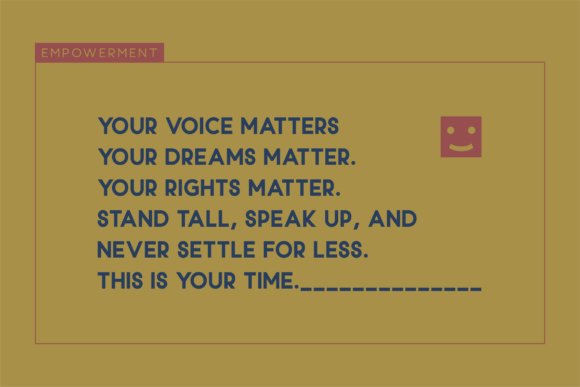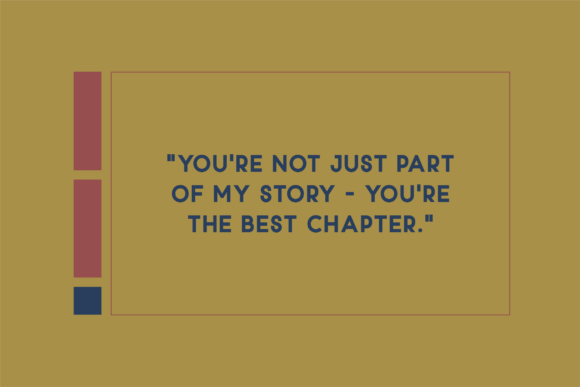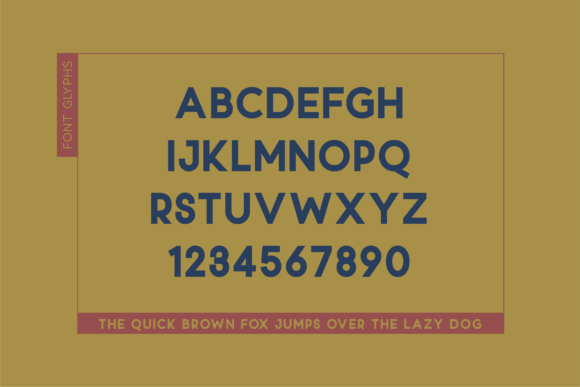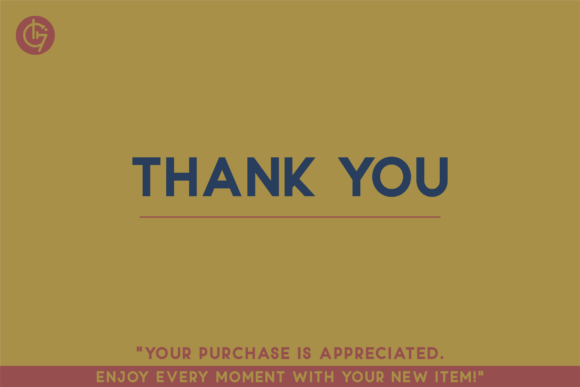
Introduction to Porceline Font
As designers, we’ve all been there – staring at a blank canvas, waiting for inspiration to strike. But what if that spark of creativity could be ignited by a single font? Enter Porceline Font, a game-changing sans serif typeface that’s about to revolutionize the way you approach your next creative project.
With its bold, all-caps design and minimalist aesthetic, Porceline Font exudes a sense of strength and authority that’s hard to ignore. Whether you’re designing a logo, website, or print material, this versatile font makes a statement with its sharp, crisp edges. And the best part? It’s designed to be free to download, making it an invaluable resource for designers of all levels.
So why is Porceline Font so valuable for designers? For starters, its clean lines and geometric structure ensure that your designs will always look high-quality and professional. And with its transparent background, you can rest assured that your work will shine – no matter what platform it’s on.
Key Features of Porceline Font
- High-quality design resource perfect for creative projects, offering a unique and elegant touch.
- Includes a large character set, including uppercase and lowercase letters, numbers, and special characters.
- Designed with a high level of detail, featuring intricate textures and subtle nuances that add depth and visual interest.
- Perfect for use in graphic design, digital art, and other creative pursuits where a high-quality, unique font is desired.
Honest Review: Porceline Font
I recently stumbled upon the Porceline Font while searching for a unique and creative project font. The first thing that caught my attention was its high quality and versatility, making it an excellent design resource for various projects.
Here are some things that work well with the Porceline Font:
- ✨ Beautiful and elegant design, perfect for luxury branding and packaging
- ⚠️ Limited character set, which may not be suitable for extended text-based projects
- ⚠️ Some letters may appear inconsistent when used in certain font sizes
Overall, the Porceline Font is a great addition to any designer’s toolkit. While it has some limitations, its unique design and high-quality aesthetic make it an excellent choice for creative projects that require a touch of elegance and sophistication.
How to Use Porceline Font
Using Porceline Font in Creative Projects
The Porceline Font is ideal for creating high-quality designs, including logos, graphics, and typography. It features a unique, elegant style that’s perfect for adding a touch of sophistication to your creative project.
Tips for Getting the Most Out of Porceline Font
To get the most out of the Porceline Font, use it in conjunction with a transparent background to create a sleek, modern design. You can also experiment with different font sizes and styles to add visual interest to your design.
Common Use Cases for Porceline Font
The Porceline Font is commonly used in branding, marketing materials, and digital graphics. Its elegant style makes it perfect for creating high-quality designs that stand out from the crowd.
Alternatives to Porceline Font
Ostrich Sans Font is a high-quality, sans-serif font that is perfect for creative projects that require a modern and clean look. It’s available for free download and features a transparent background, making it ideal for use on images and graphics. When to use: For designs that require a simple and elegant look, such as logos, business cards, and brochures. Comparison: Ostrich Sans Font is more modern and minimalist compared to Porceline Font, which has a more ornate and vintage feel.
Great Vibes Font is a beautiful, script font that is perfect for creative projects that require a touch of elegance and sophistication. It’s available for free download and features a transparent background, making it ideal for use on images and graphics. When to use: For designs that require a romantic and whimsical look, such as wedding invitations, event posters, and packaging design. Comparison: Great Vibes Font is more elegant and refined compared to Porceline Font, which has a more playful and whimsical feel.
How do I use the Porceline Font with a transparent background in my design?
To use the Porceline Font with a transparent background, you’ll need to use a design software that supports vector graphics and layer styles, such as Adobe Illustrator or Inkscape. You can create a new document with a transparent background, add the Porceline